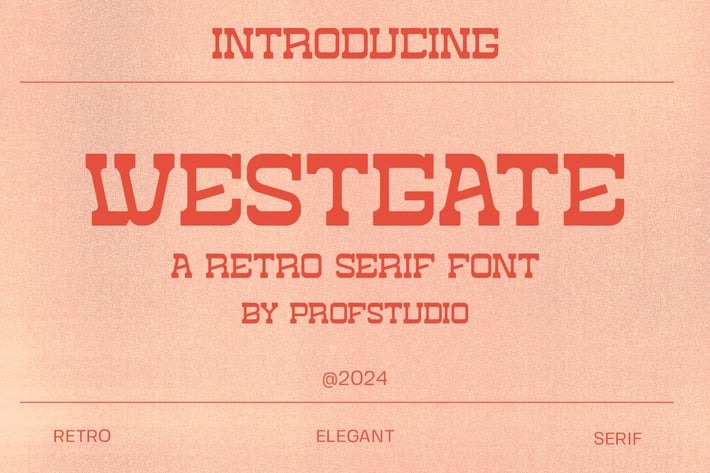
West Gate - Retro Serif Font
profstudio
West Gate - Retro Serif Font . Its design is inspired by the western Retro Font. The font has a Bold, Rounded Edge, perfect for creative projects.
The round edges convey friendly and Nostalgic vibe. This font is versatile, suitable for both digital and print media. It’s easy to read, making it great for headings, magazine, poster, and logos.